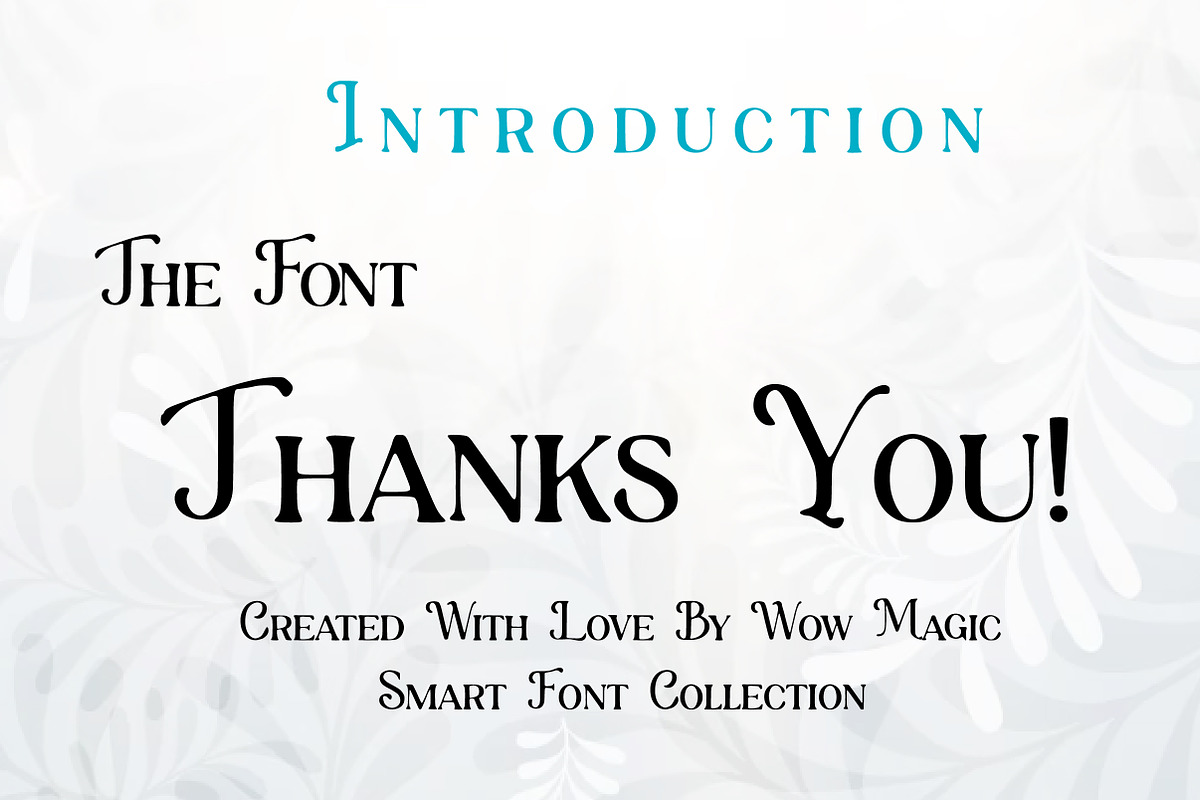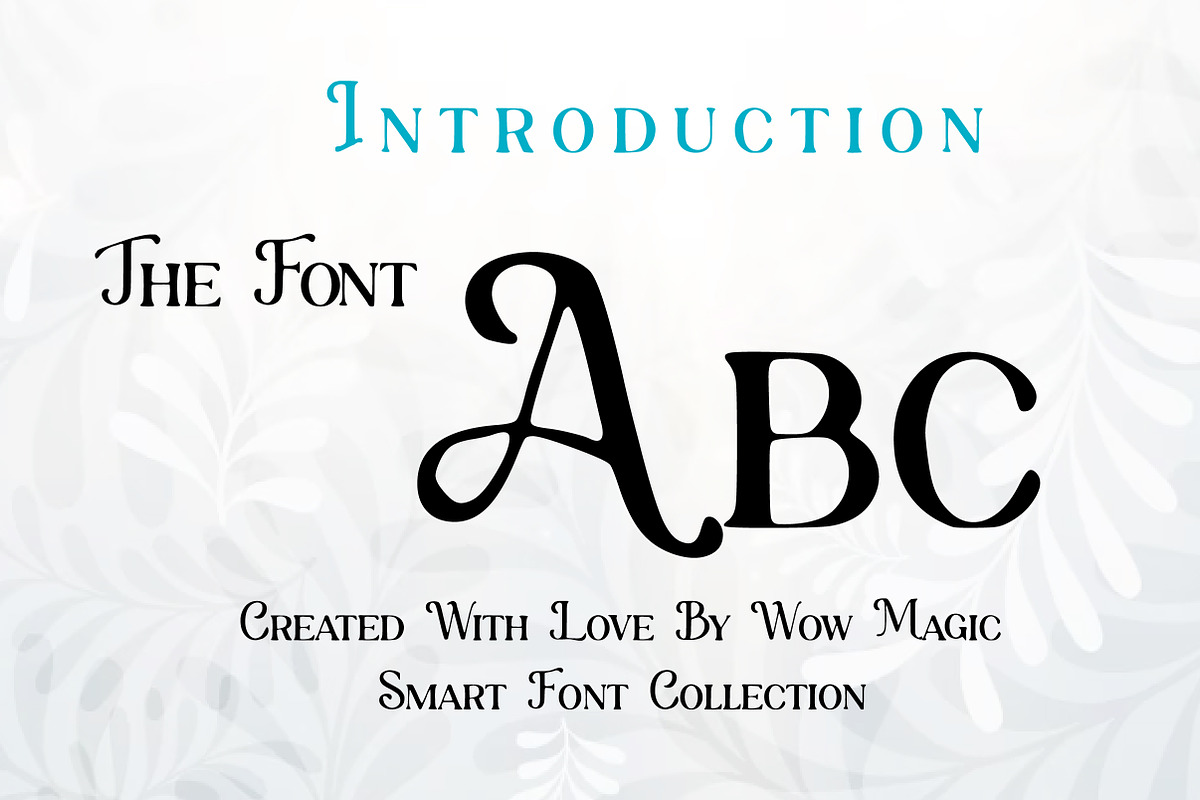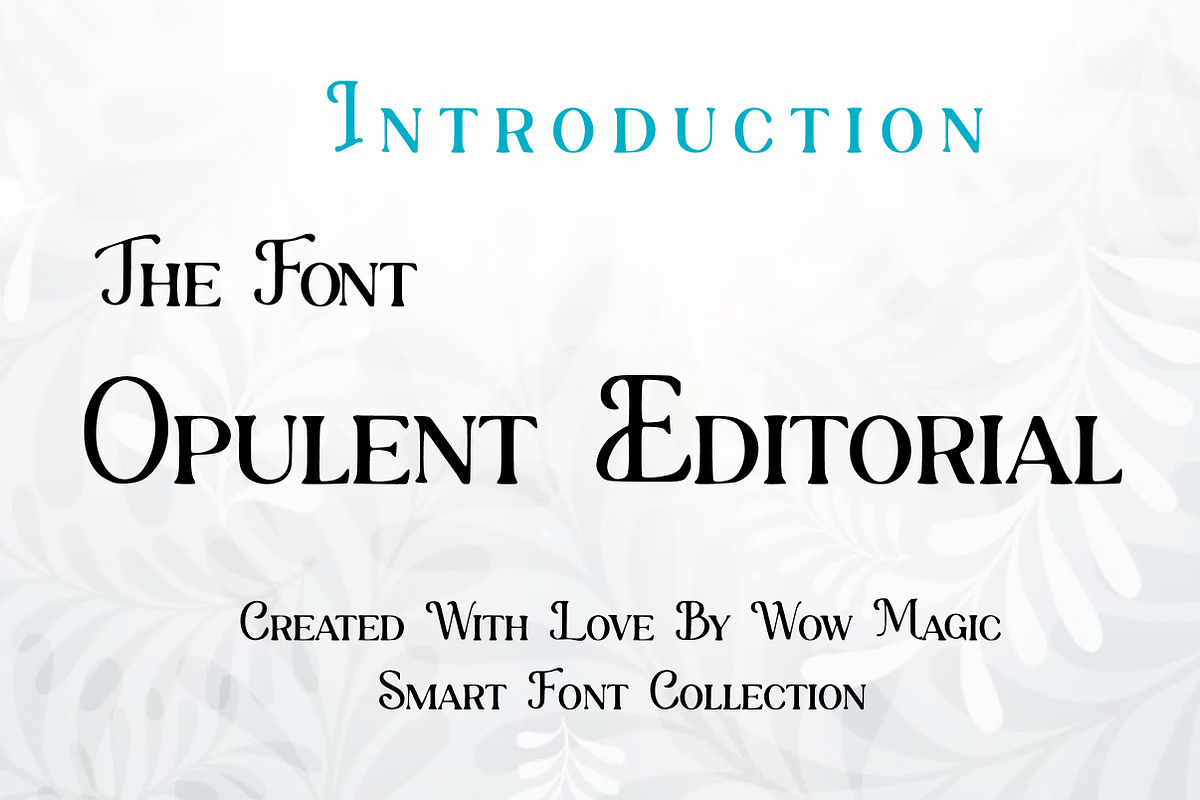
Opulent Editorial
Opulent Editorial is a refined luxury serif display font inspired by classic editorial typography and high-fashion magazine aesthetics. Featuring elegant high contrast strokes, sharp serifs, and graceful letterforms, this typeface brings a sense of sophistication and prestige to any design.
The font is ideal for fashion branding, luxury logos, magazine headlines, editorial layouts, packaging, and beauty brand designs. Its stylish and timeless structure allows it to shine in both print and digital environments.
Whether you are designing fashion editorials, boutique branding, premium packaging, or elegant social media visuals, Opulent Editorial delivers a polished and high-end typographic presence that elevates your project.
Perfect For: • Fashion Branding • Luxury Logos • Magazine Headlines • Editorial Layouts • Beauty & Cosmetic Branding • Packaging Design • Social Media Graphics • Premium Branding Projects